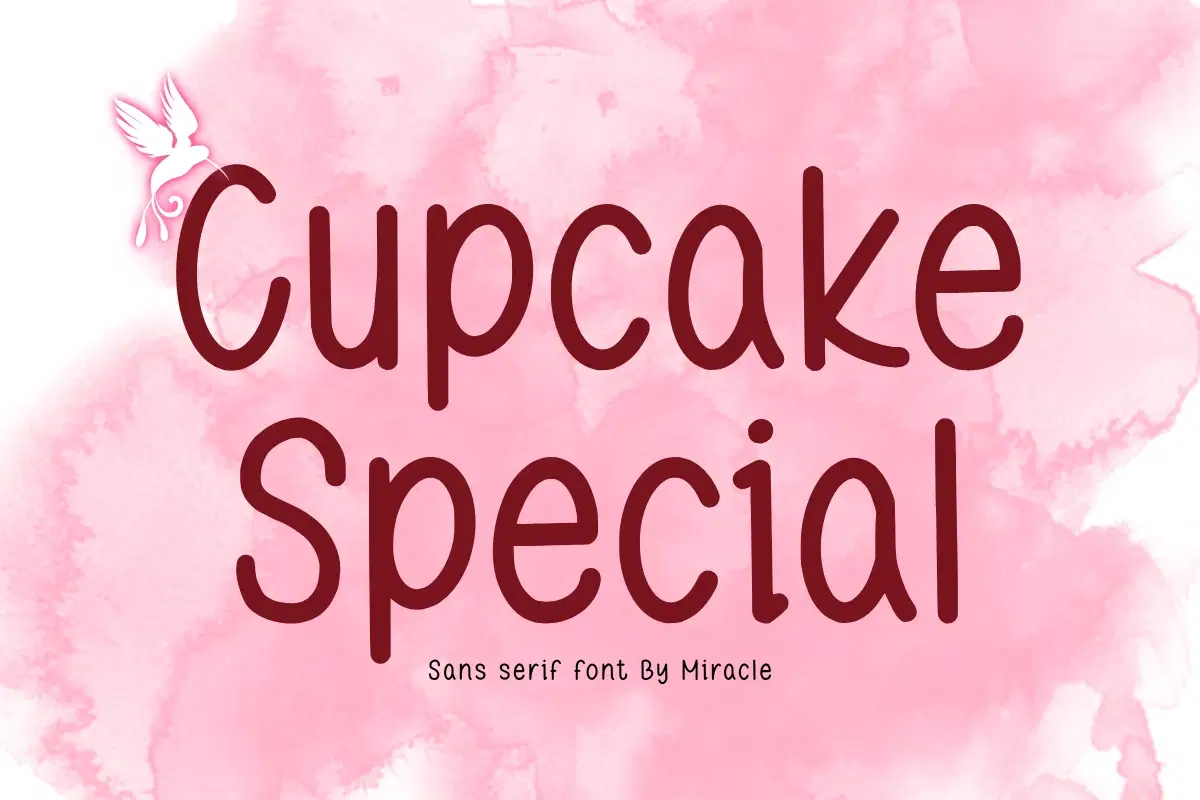
Indulge your creative designs with Cupcake Special, a delightful sans serif font by Miracle. Featuring slender, hand-drawn letterforms and a soft, approachable rhythm, this font is designed to bring a touch of sweetness and warmth to any project. It strikes the perfect balance between casual elegance and playful charm.
Cupcake Special is exceptionally well-suited for branding that requires a personal and "homemade" feel. Its clean structure ensures great legibility, while its organic curves add an artisanal touch that is perfect for the bakery, craft, and lifestyle industries.